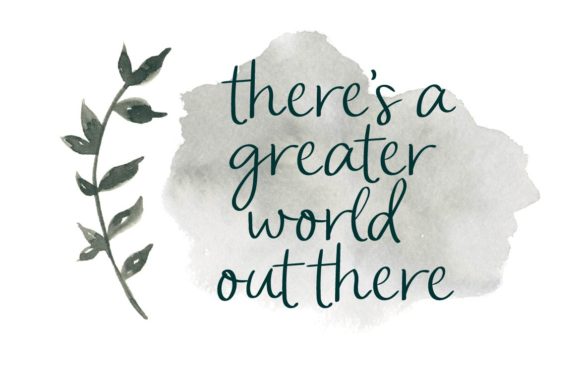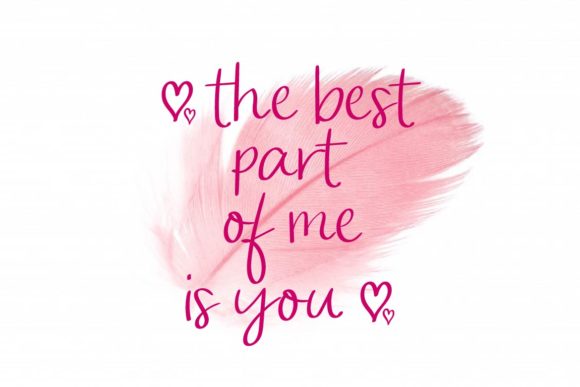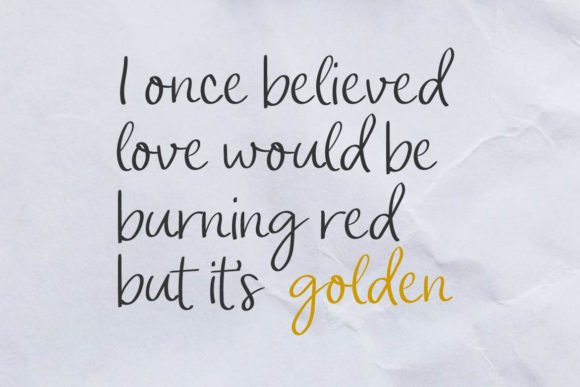
Introduction to Give Love Font
Have you ever been browsing through your favorite design blogs or Pinterest boards, and suddenly you stumble upon a beautifully crafted letterhead or title that catches your eye? The perfect combination of style and elegance leaves you wondering how it was created. This is exactly what happens when you come across the Give Love Font, a sweet and modern handwritten font that exudes classy calligraphic influences while feeling contemporary and fresh.
Key Features of Give Love Font
- Perfect for Design Resource: Give Love Font is an excellent addition to your design resource library, suitable for use in logos, typography, and other creative projects.
- Unique Characteristics: This font features a unique, hand-drawn design that adds a touch of personality to your work, making it stand out from other fonts.
Honest Review: Give Love Font
I recently had the chance to work with the Give Love Font, and I must say it’s been a delight. The font is a beautiful addition to any creative project, offering a high-quality design resource that can elevate your work to the next level.
One of the standout features of the Give Love Font is its versatility. It’s perfect for a wide range of applications, from digital designs to printed materials. I particularly enjoyed using it for a recent branding project, where its unique style helped to convey a sense of warmth and approachability.
- High-quality design resource
- Perfect for creative projects, including digital designs and printed materials
- Unique style that adds a touch of warmth and approachability
- May not be suitable for formal or corporate designs
- Limited font sizes and styles available
Tips for Getting the Most Out of Give Love Font
Use the Give Love Font in conjunction with other design resources to create a cohesive and visually appealing design. Experiment with different font sizes, colors, and styles to add depth and interest to your project.
The Give Love Font is ideal for use in wedding invitations, baby shower invitations, and other creative projects that require a high-quality, elegant font. You can also use the font to create custom signage, labels, and other design elements.